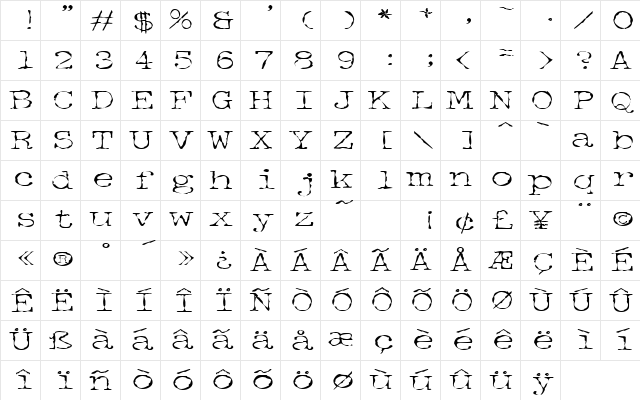
DetectiveExtended Regular
DetectiveExtended Family
Design Context for DetectiveExtended
DetectiveExtended is a composed and adaptable typeface that performs quietly and consistently across a wide range of design contexts.